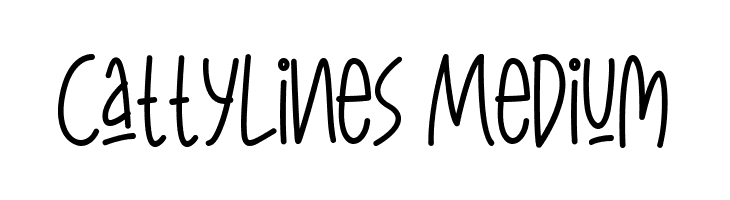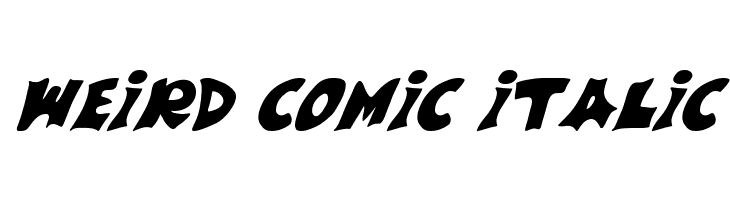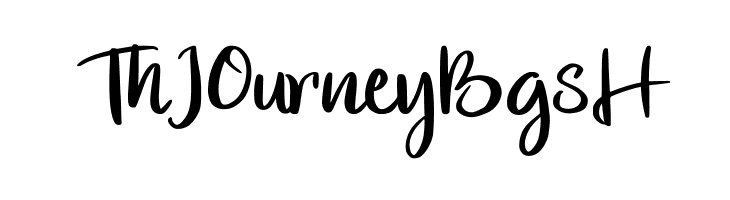
A bold, graffiti-inspired font with jagged edges and a distressed texture.
A bold, handwritten font with playful and energetic characteristics.
A modern, elegant font with high contrast and sleek, elongated characters.
A bold, angular font with a futuristic and dynamic style.
A graceful script font with elegant, flowing lines and a handwritten style.
A playful and whimsical font with tall, narrow letterforms and dynamic strokes.
A futuristic italic font with a striped gradient effect, exuding speed and modernity.
A playful, casual handwritten font with smooth, rounded lines.
A playful and bold decorative font with quirky letterforms.
A bold, geometric font with a modern, futuristic style.